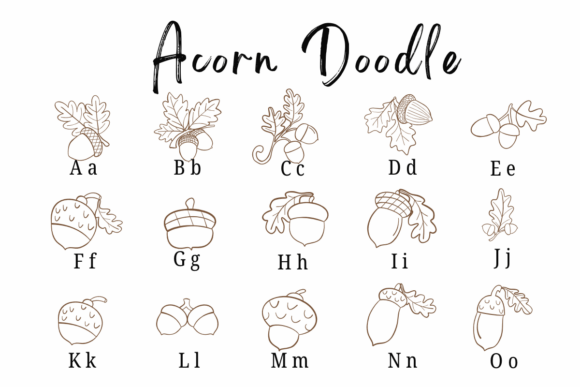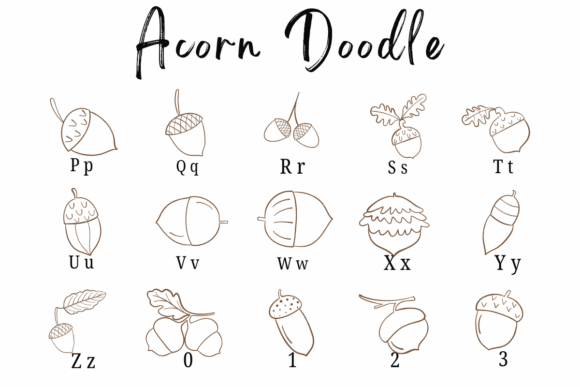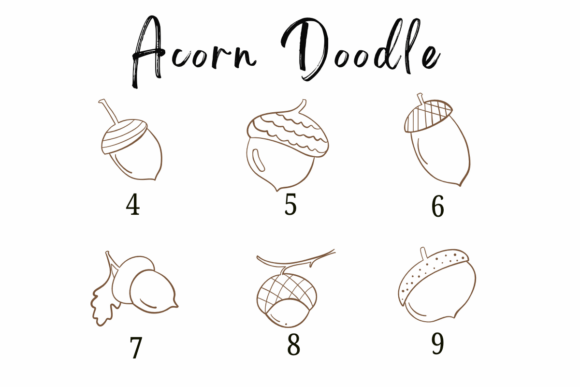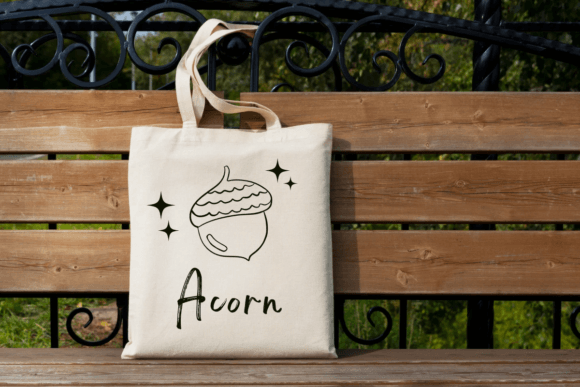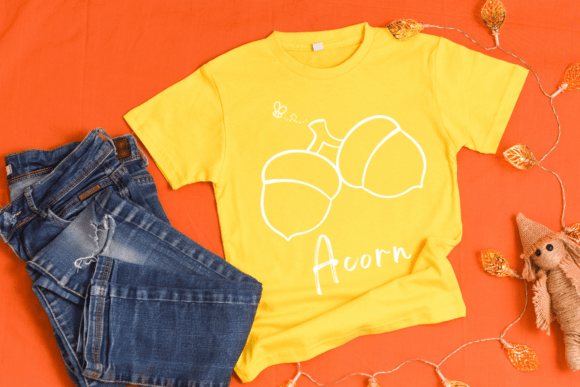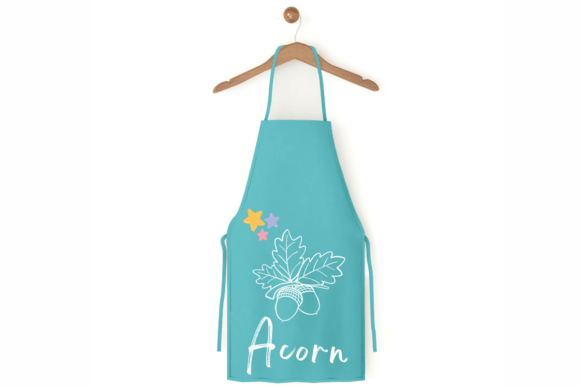
Introducing Acorn Doodle Font: Elevate Your Creative Projects with a Sketched Style
Are you a designer, crafter, or DIY enthusiast looking for a unique and creative way to add a personal touch to your projects? Look no further than the Acorn Doodle Font, a charming dingbats font with a sketched style that’s perfect for a wide range of creative endeavors. In this article, we’ll explore the features and benefits of Acorn Doodle, and show you how it can enhance your wedding invitations, DIY projects, crafts, decorations, logos, and more.
What is Acorn Doodle Font?
Acorn Doodle is a dingbats font that features a delightful sketched style, reminiscent of hand-drawn illustrations. The font is made up of intricate doodles and designs that are perfect for adding a touch of whimsy and personality to your projects. With Acorn Doodle, you can create unique and eye-catching designs that are sure to stand out from the crowd.
Features of Acorn Doodle Font
- Sketched style: Acorn Doodle features a beautiful, hand-drawn style that’s perfect for creating unique and personalized designs.
- Dingbats font: As a dingbats font, Acorn Doodle features a wide range of illustrations and symbols that can be used to enhance your projects.
- Versatile: Acorn Doodle can be used for a wide range of projects, from wedding invitations and DIY crafts to logos and decorations.
Uses for Acorn Doodle Font
Acorn Doodle is a versatile font that can be used for a wide range of creative projects. Here are just a few ideas to get you started:
- Wedding invitations: Add a touch of whimsy and romance to your wedding invitations with Acorn Doodle’s beautiful, sketched illustrations.
- DIY crafts: Use Acorn Doodle to create unique and personalized DIY crafts, such as handmade cards, gift tags, and decorations.
- Logos and branding: Acorn Doodle’s distinctive style makes it perfect for creating unique and memorable logos and branding materials.
- Decorations: Use Acorn Doodle to create beautiful and eye-catching decorations, such as wall art, garlands, and gift wraps.
Tips for Using Acorn Doodle Font
Here are a few tips for getting the most out of Acorn Doodle:
- Experiment with different colors: Acorn Doodle looks great in a wide range of colors, so don’t be afraid to experiment and find the perfect hue for your project.
- Mix and match: Combine Acorn Doodle with other fonts and illustrations to create unique and eye-catching designs.
- Pay attention to scale: Make sure to adjust the scale of your Acorn Doodle illustrations to fit your project and achieve the desired effect.
Acorn Doodle Font is a unique and versatile dingbats font with a sketched style that’s perfect for designers, crafters, and DIY enthusiasts. With its wide range of illustrations and symbols, Acorn Doodle can be used for a wide range of creative projects, from wedding invitations and DIY crafts to logos and decorations. Whether you’re looking to add a touch of whimsy and personality to your projects or create unique and memorable branding materials, Acorn Doodle is the perfect choice.